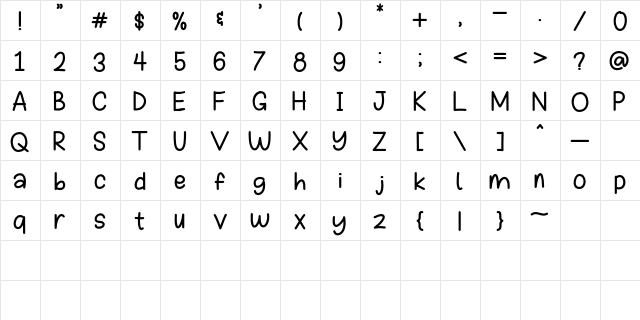
Butterbean Regular
Design Context for Butterbean Typeface
Butterbean is a composed and adaptable typeface that performs quietly and consistently across a wide range of design contexts.